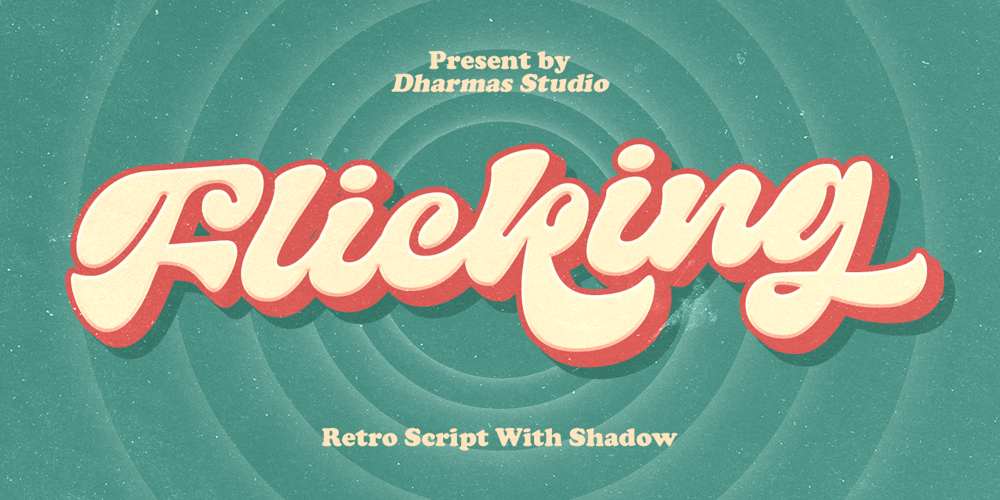
Flicking Font Family was designed by Ahmad Jamaludin and published by Ahmad Jamaludin. Flicking contains 2 styles and family package options. Introducing FLICKING, a font that’s like a groovy time machine to the 60s. With its bold retro script and the added Shadow version, creating that perfect vintage look is a breeze.FLICKING offers two styles: Regular and Shadow, making it versatile for logos, invitations, labels, magazines, books, and even greeting cards.Features: Flicking Main File Has 2 Families: Regular and Shadow Instructions (Access special characters, even in Cricut Design) Simple Installations Thank you,Dharmas Studio